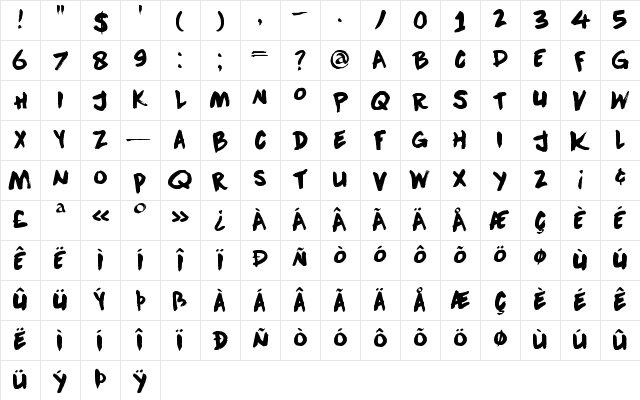
DK Downward Fall Regular
Foundry: David Kerkhoff
Designer: David Kerkhoff
Design Context for DK Downward Fall
DK Downward Fall is a composed and adaptable typeface that performs quietly and consistently across a wide range of design contexts.